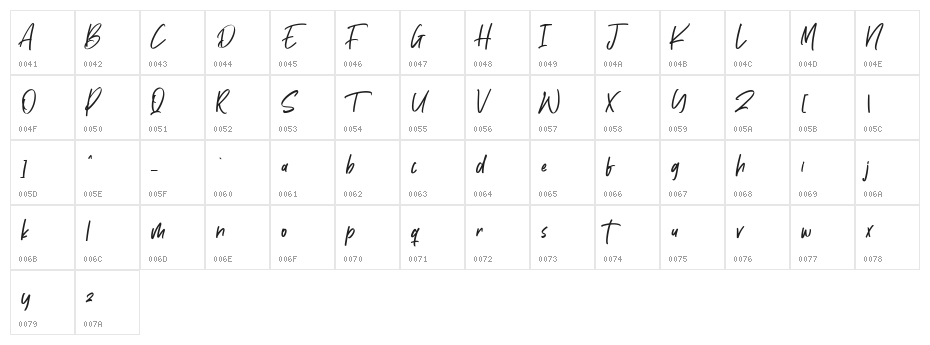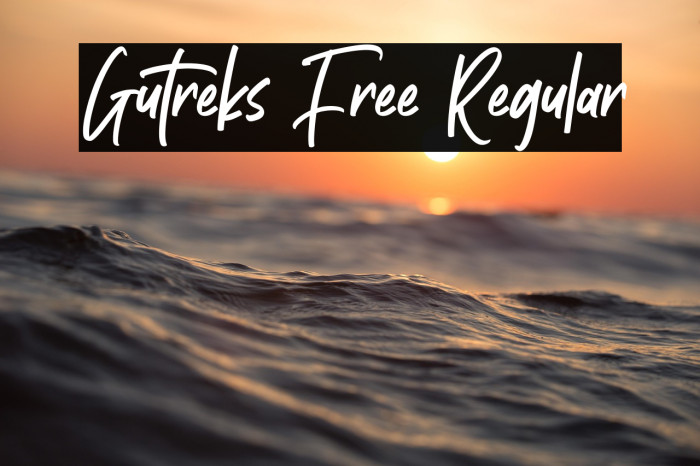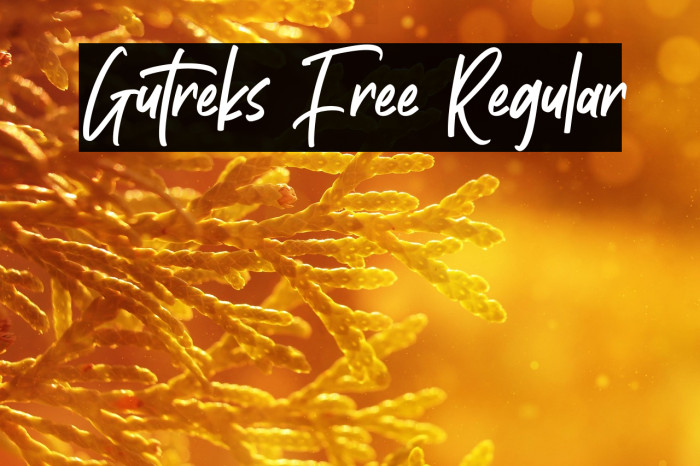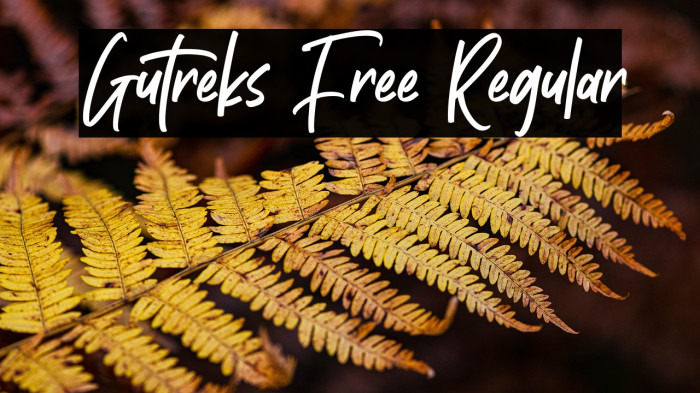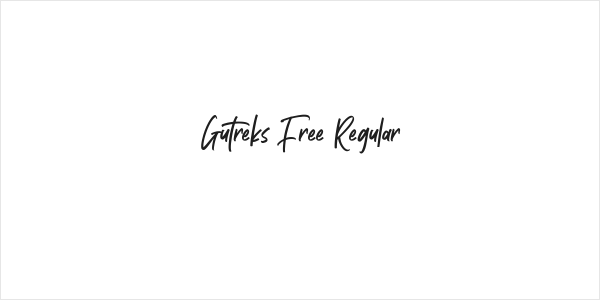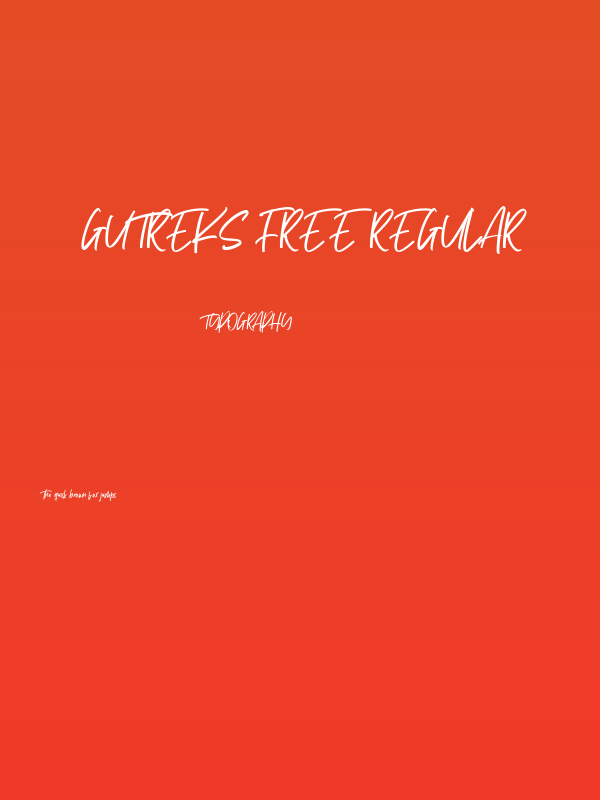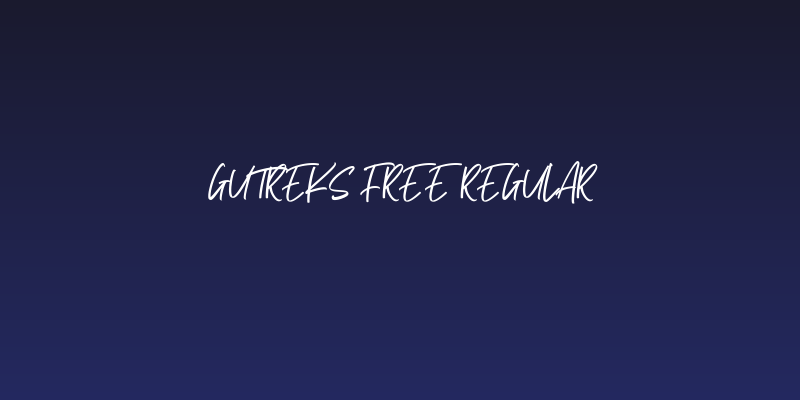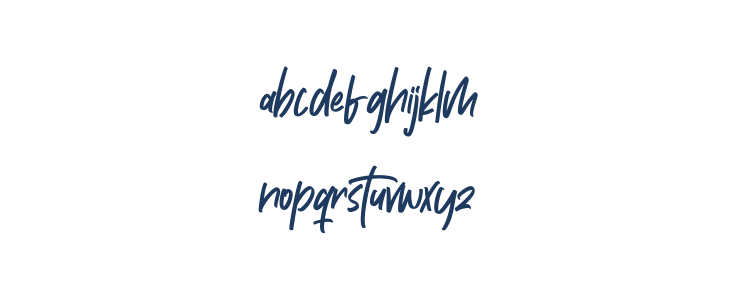
Gutreks Free Regular Font
Gutreks Free Regular Description
This font features a dynamic and energetic handwritten style, characterized by its fluid and flowing letterforms. The strokes are bold and expressive, with a slight slant that adds a sense of movement and spontaneity. The uppercase and lowercase letters maintain a consistent style, with elongated ascenders and descenders that enhance its artistic flair. The numbers and special characters are crafted with the same attention to detail, ensuring a cohesive look across all glyphs. This font's unique personality makes it stand out, offering a modern twist on traditional script fonts.